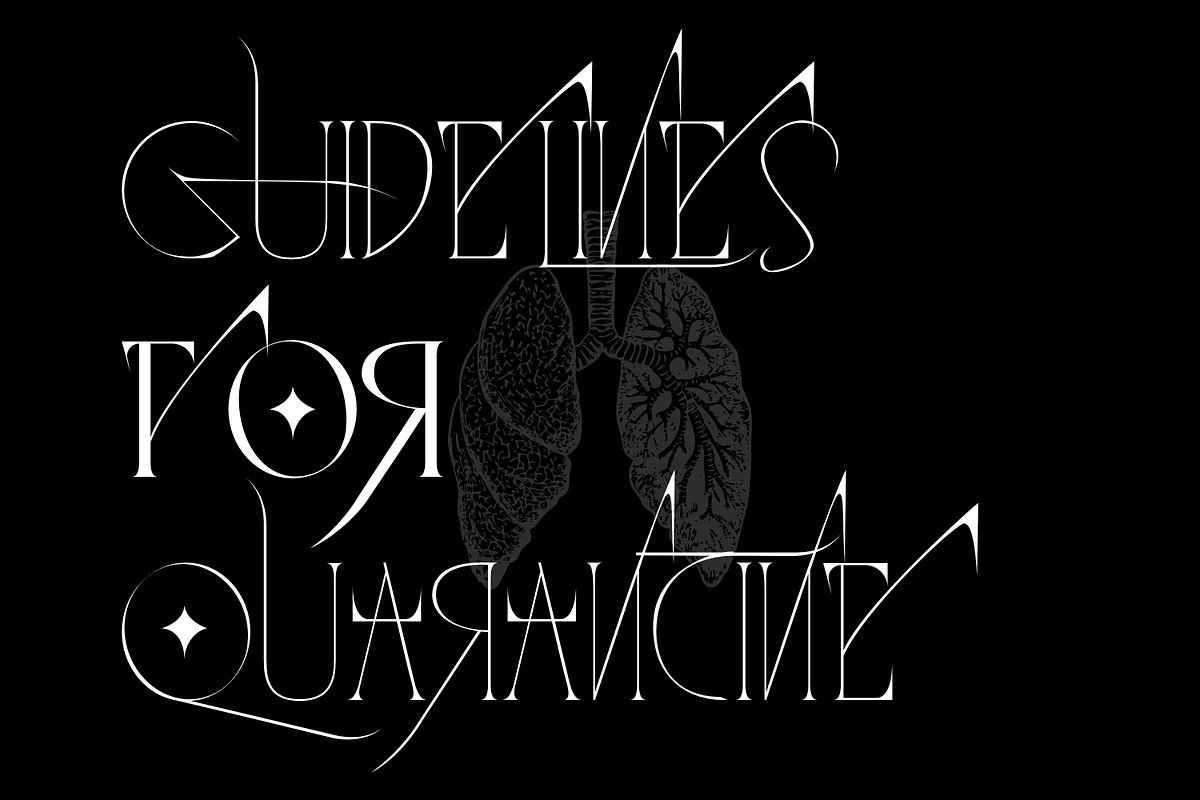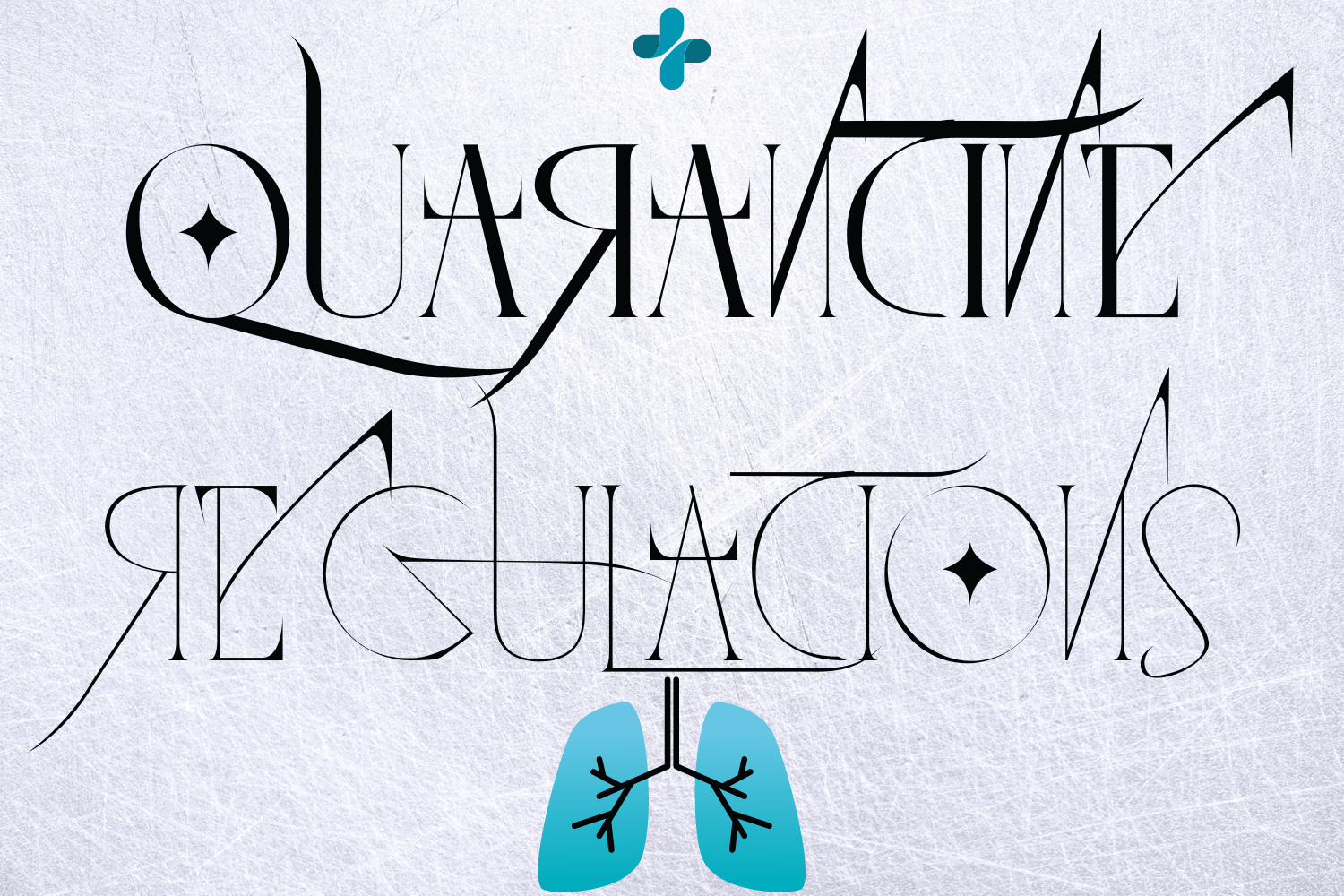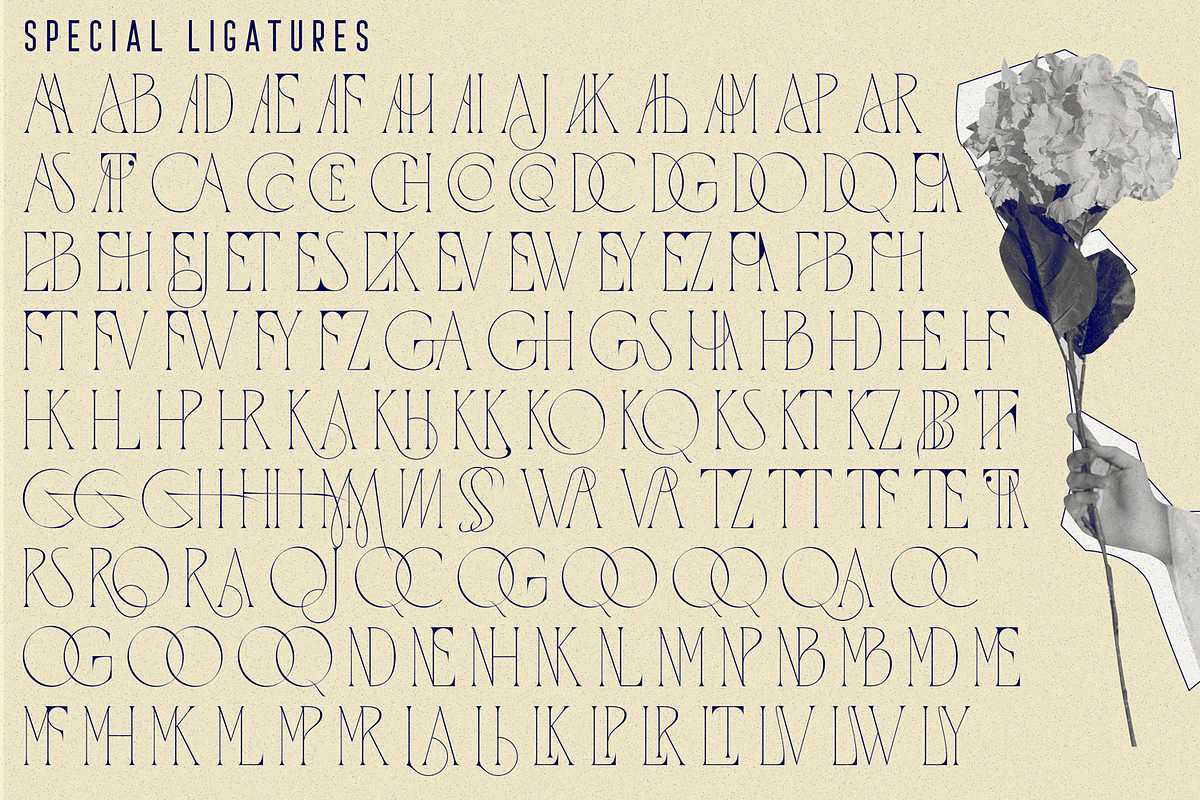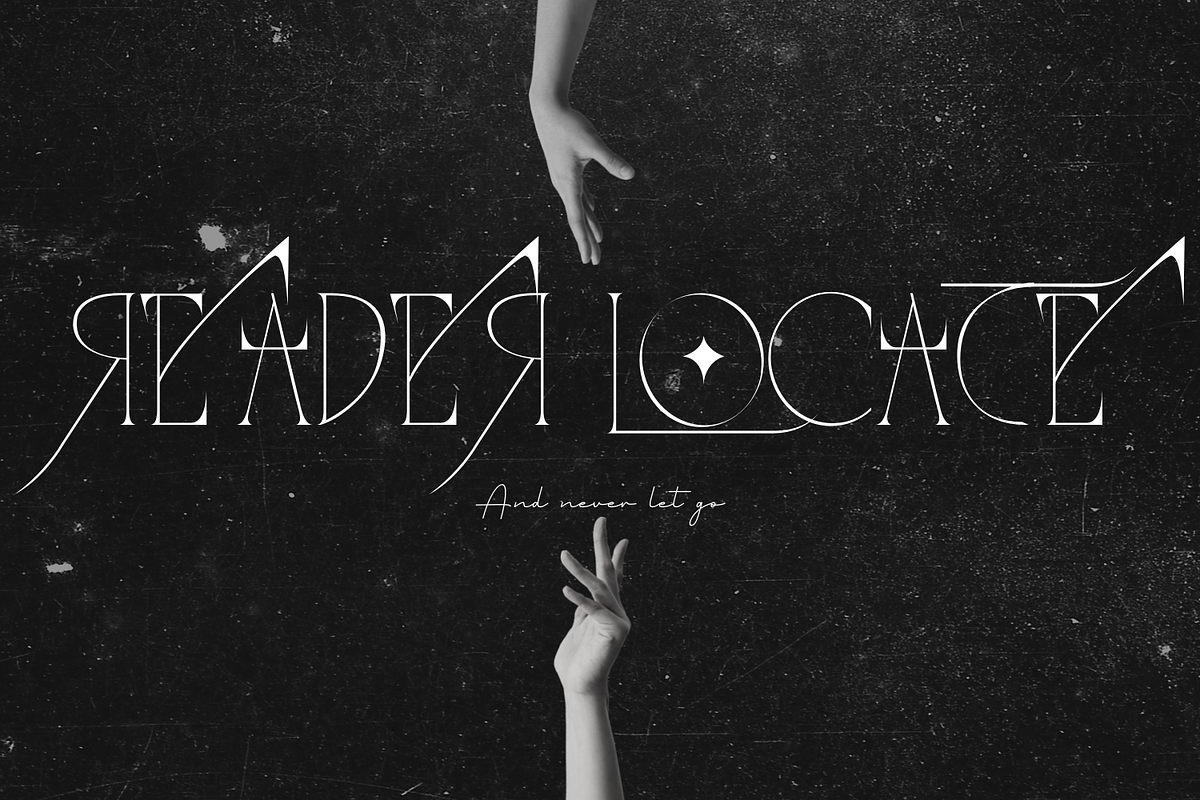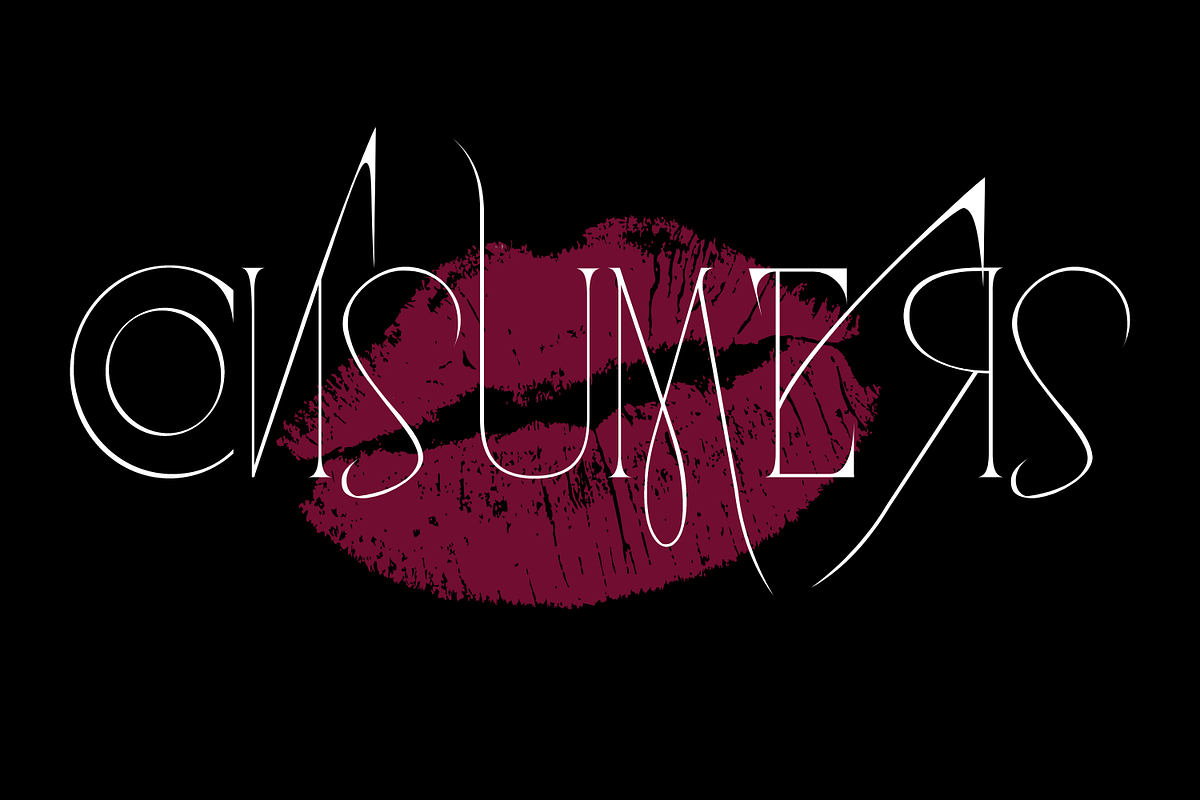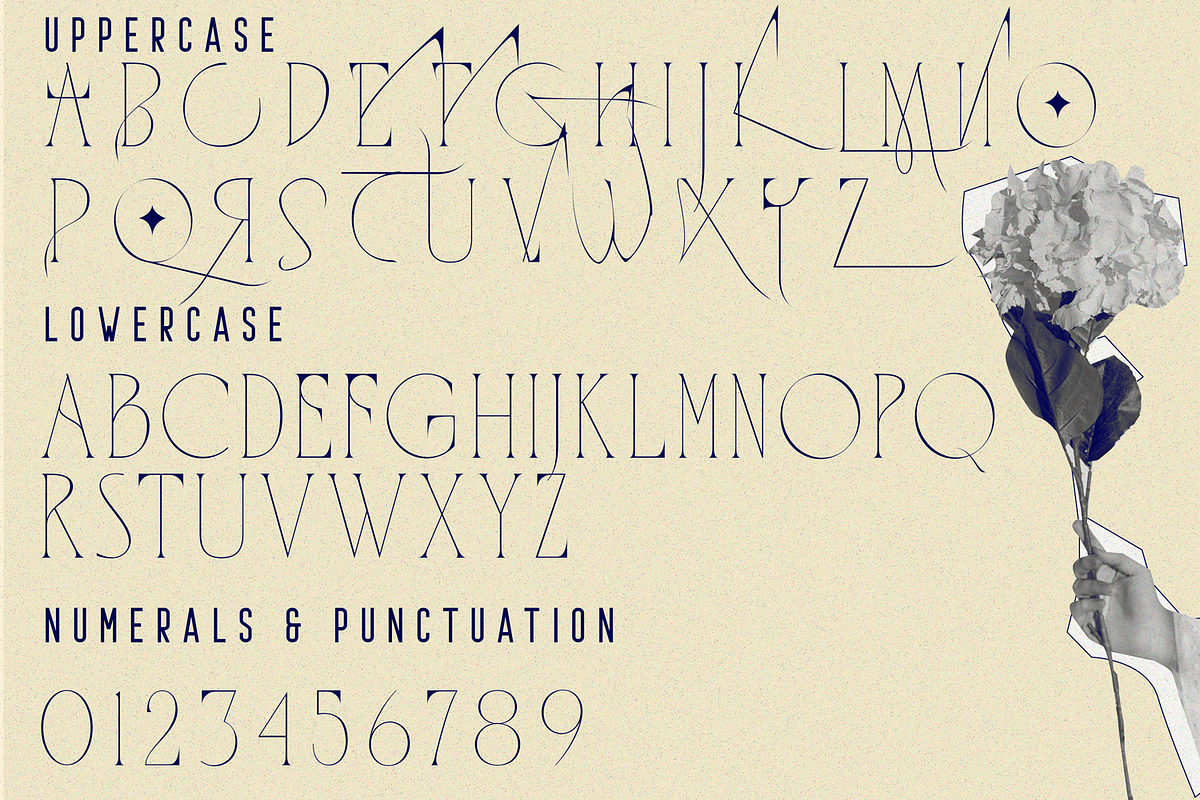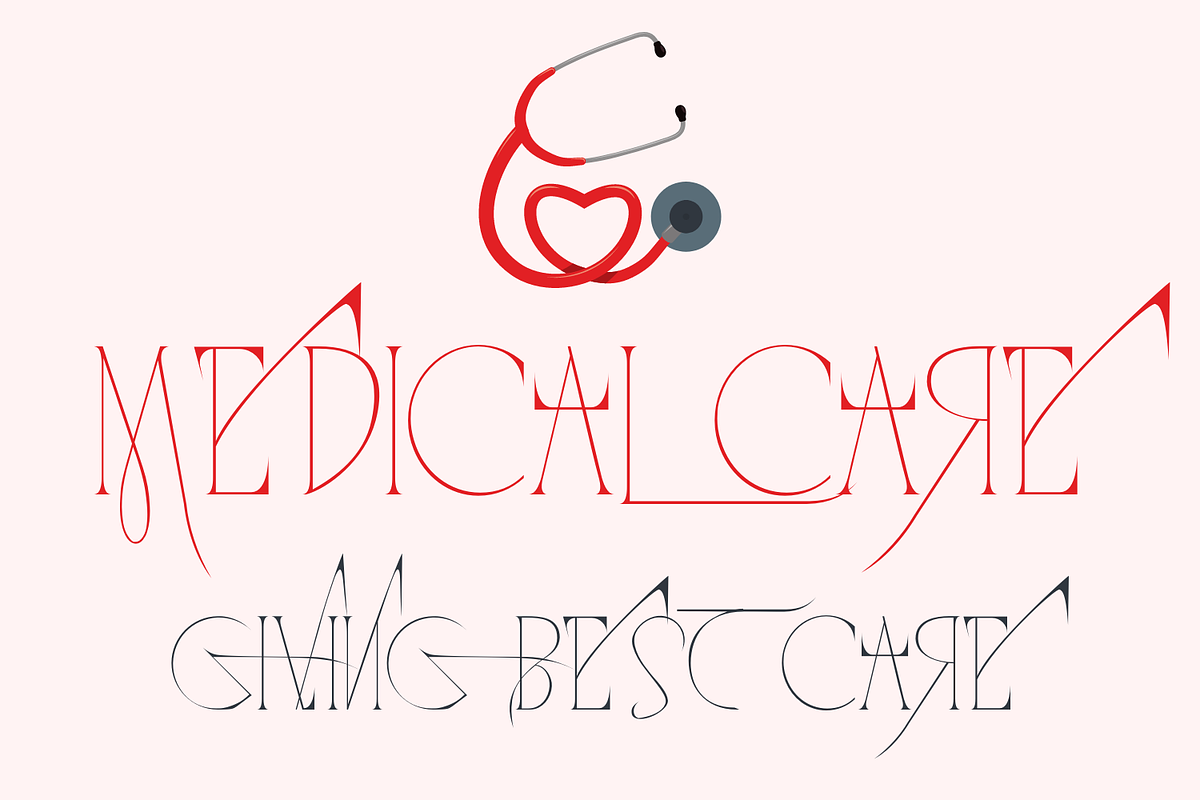
QUARANTINE REGULATIONS FONT
QUARANTINE REGULATIONS is a fancy font with a lot of ties to it, with great detail. It's a beautiful and inspiring mix of classic calligraphy and modern serif with 125 unique ligatures. This font is perfect for your work to make it look elegant and luxurious. Beauty Serif font, clean classic and mindful , it combine in one font, use this font for anything beauty place for your logo, headline, cover book, magazine and many more.
To make it look more unique, here we prepared some ligatures:
aa ab ad ae af ah ai aj ak al am ap ar as at ca cc ce ch co cq dc dg do dq ea eb eh ej et es ek ev ew ey ez fa fb fh ft fv fw fy fz ga gh gs ha hb hd he hf hk hl hp hr ka kh kk ko kq ks kt kz bb GG GH hh MM nn ss wa va tz tt tf te ta rs ro ra oj qc qg qo qq qa oc og oo oq nd ne nh nk nl nm np nb mb md me mf mh mk ml mp mr la li lk lp lr lt lv lw ly
QUARANTINE REGULATIONS is also included full set of:
- Special Ligatures